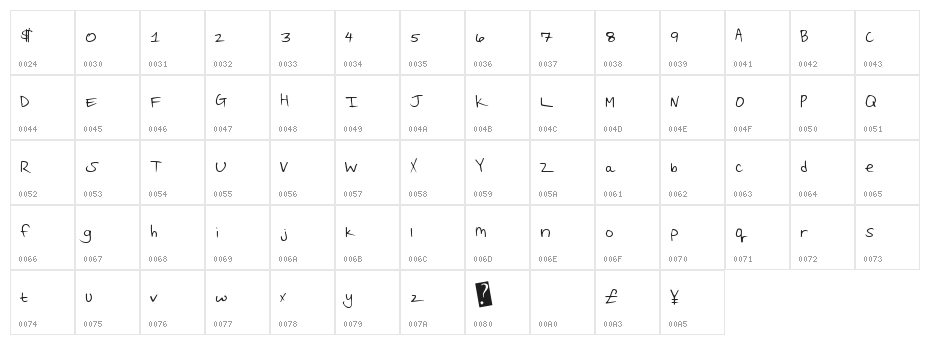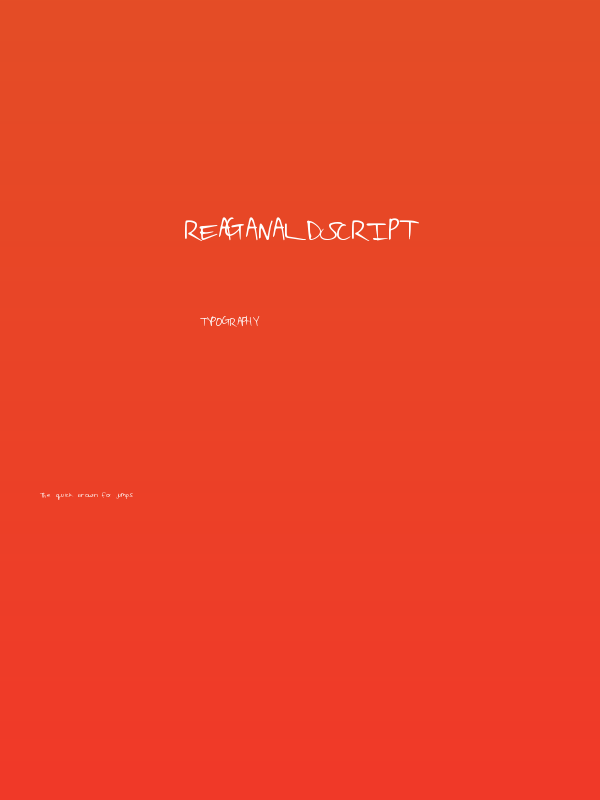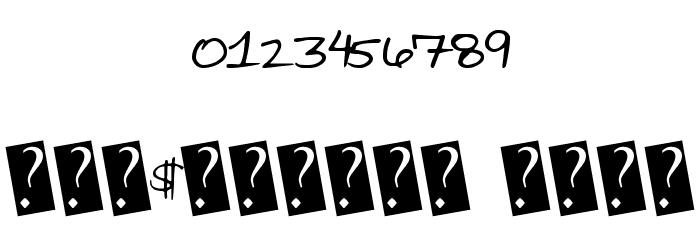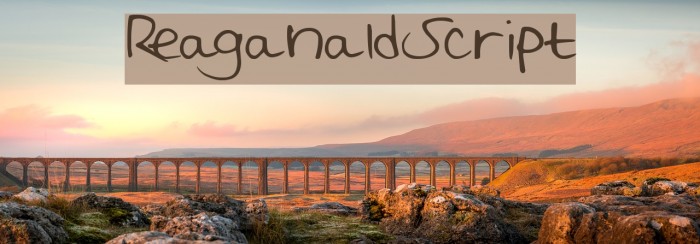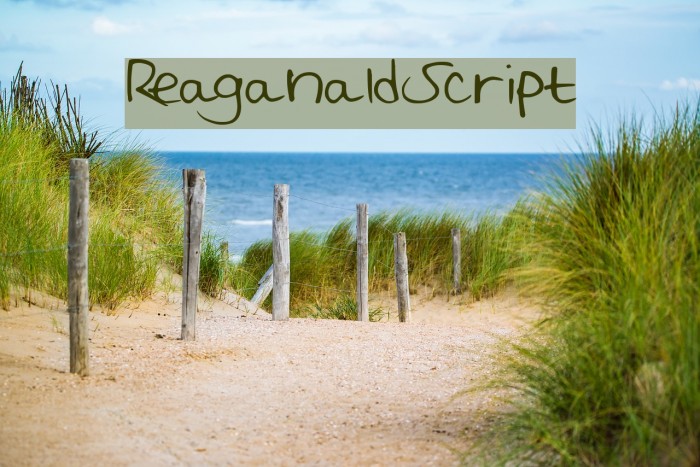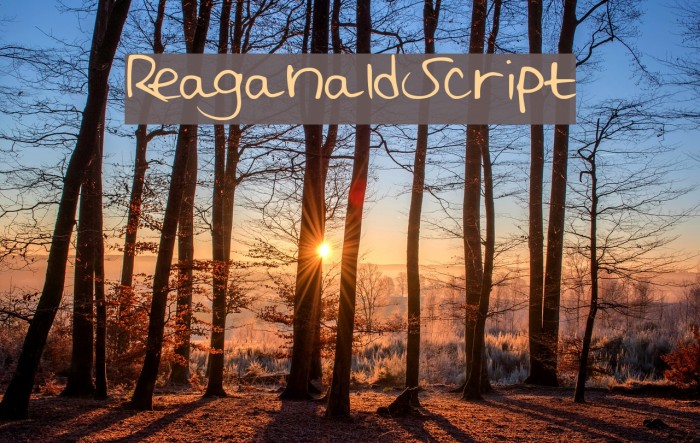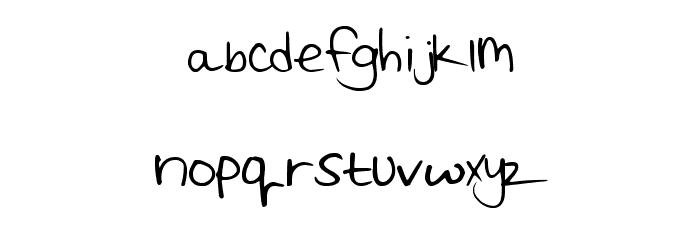
ReaganaldScript Font
ReaganaldScript Description
This font exudes a casual and playful handwritten style, characterized by its smooth, flowing lines and slightly irregular letterforms. The uppercase letters maintain a consistent height, while the lowercase letters vary slightly, adding to the informal aesthetic. The numerals are clear and legible, matching the overall style of the alphabet. The special characters are integrated seamlessly, maintaining the font's cohesive look. This font is ideal for projects that require a personal touch, such as invitations, greeting cards, or creative branding.
| Use Case | Headlines, Logos, Personal projects |
| Proposed Projects | Ideal for invitations, greeting cards, creative branding, and personal projects. |